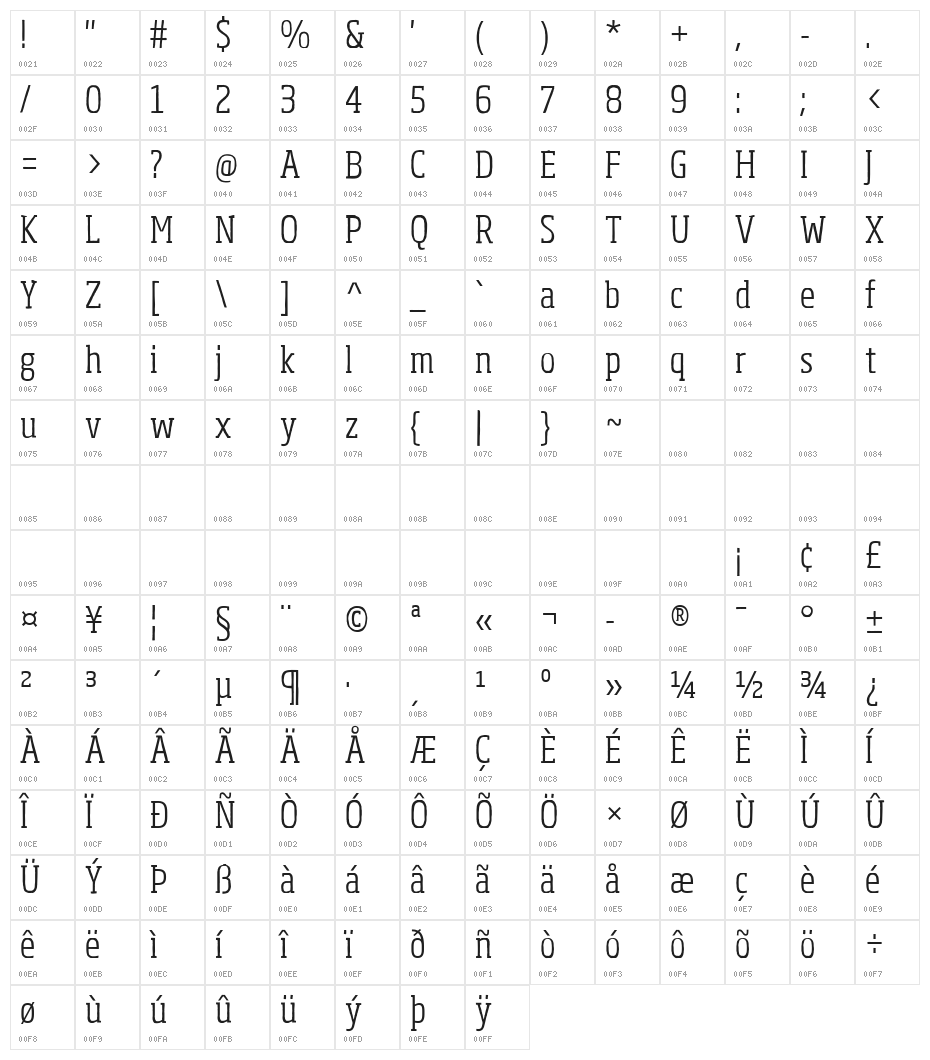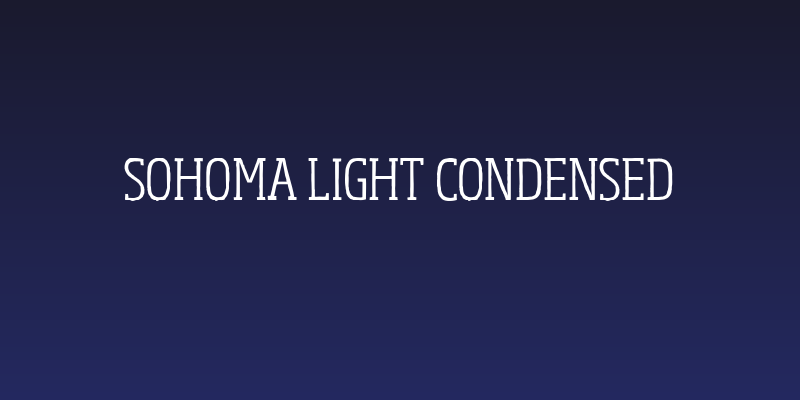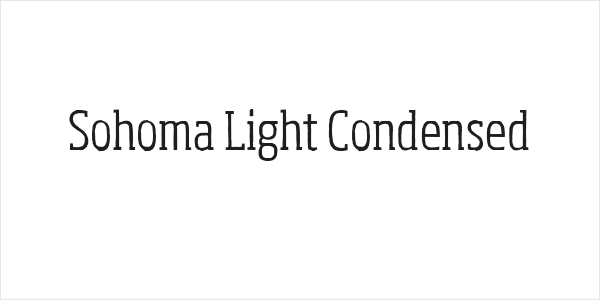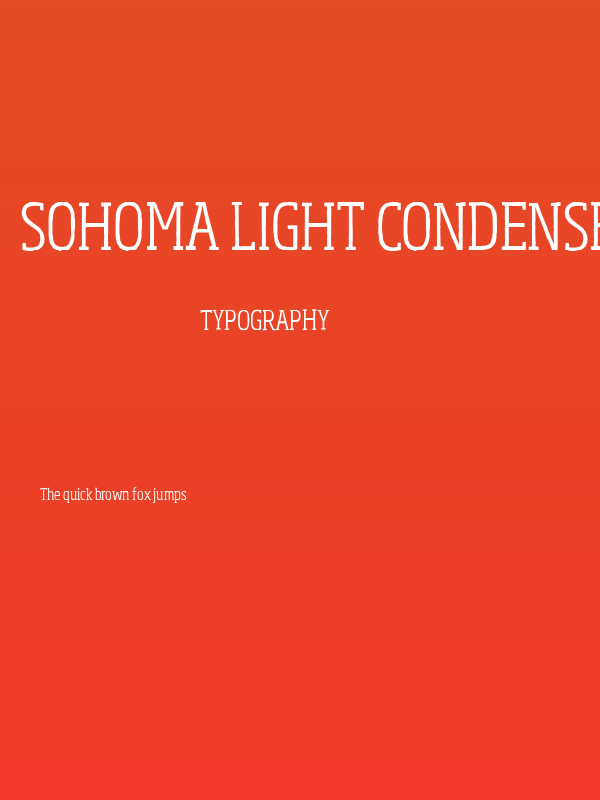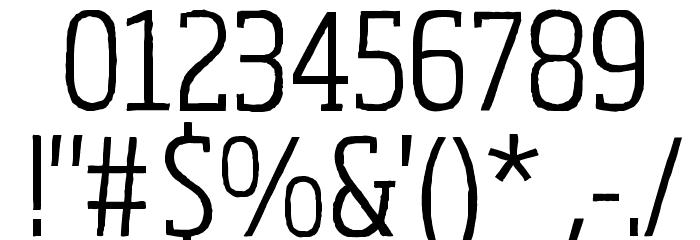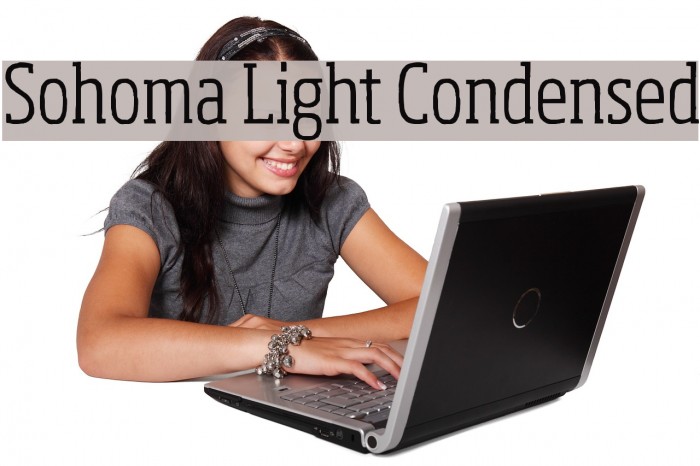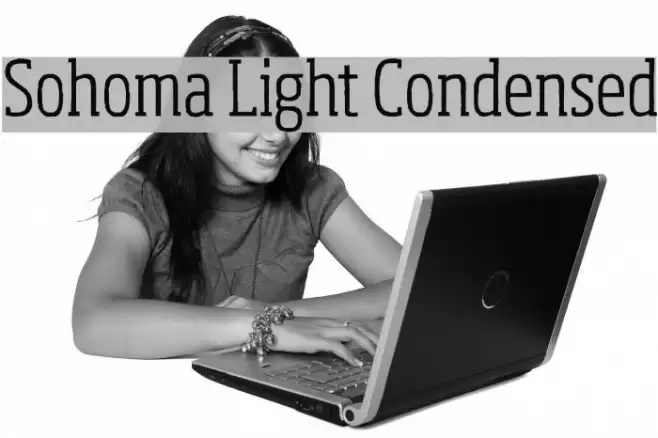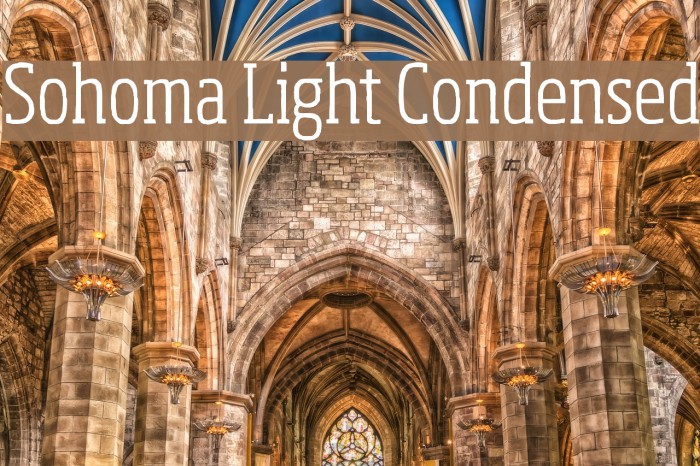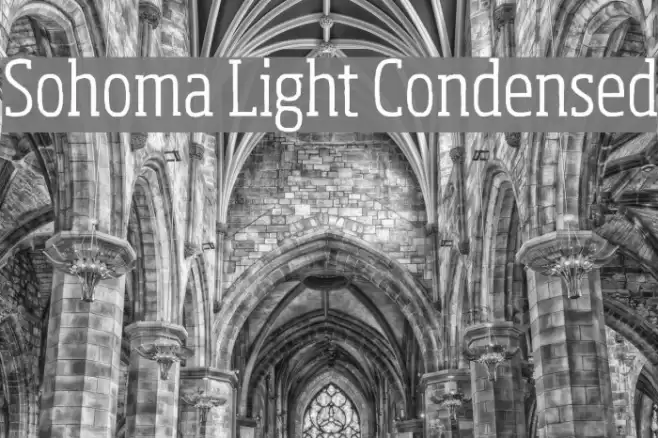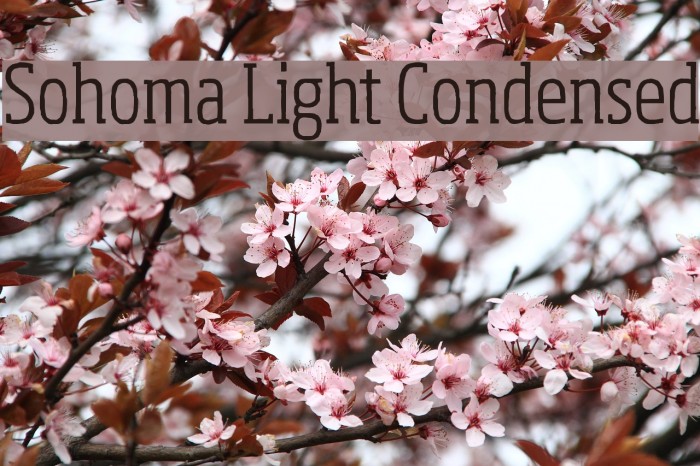
Sohoma Light Condensed Font
Sohoma Light Condensed Description
This font features a clean and streamlined design with a condensed structure, making it ideal for space-saving applications. The characters exhibit a light weight, contributing to an airy and elegant appearance. The strokes are consistent, with a medium contrast that adds subtle sophistication without overwhelming the reader. The uppercase and lowercase letters are well-proportioned, ensuring readability across various sizes. The numerals and special characters maintain the font's cohesive style, providing versatility for diverse design needs.
| Width | Condensed |
| Use Case | Headlines, Body text, Logos |
| Proposed Projects | Ideal for editorial design, branding, and packaging where space is limited but style is essential. |